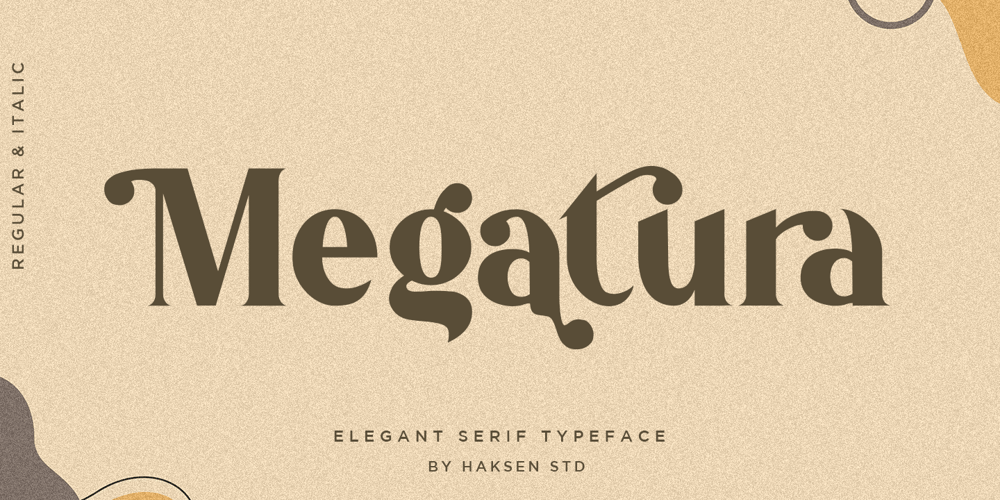
Megatura
Megatura font
Megatura Font Family was designed by Sarwo Edhi Prayitno and published by Haksen. Megatura contains 2 styles and family package options. Megatura is a Bold elegant modern vintage with upper and lowercase feel nice balanced curves. This font is inspired by lettering from couple of the good talent artist, but it still has a strong modern appearance. Its wide range of stylistic alternates allows versatile design options and works perfectly for headlines, logos, posters, packaging, T-shirts, postcards and much more.Font Features : Regular and Italic version Character set A-Z Stylistic Alternates & Ligatures Numerals & Punctuation Accented Characters Multiple Languages Supported Recommended to use in Adobe Illustrator or Adobe Photoshop with opentype feature.How to access Alternate Characters?Open glyphs panel :- In Adobe Photoshop choose tool Window > glyphs- In Adobe Illustrator choose tool Type > glyphsIf you have questions, just send me a message and I’m glad to helpHave a great dayHaksen Std